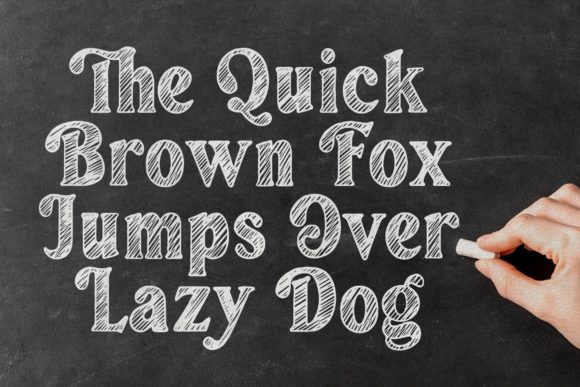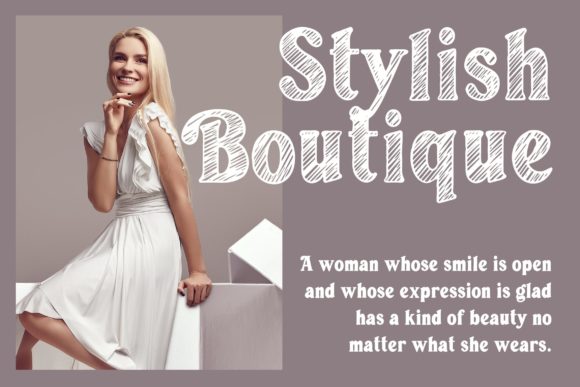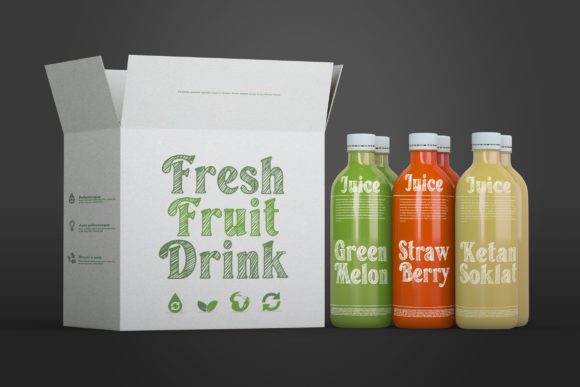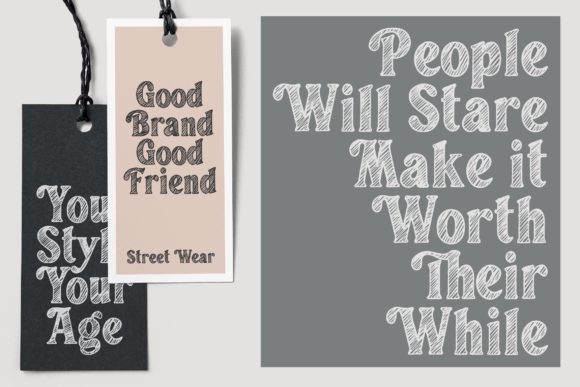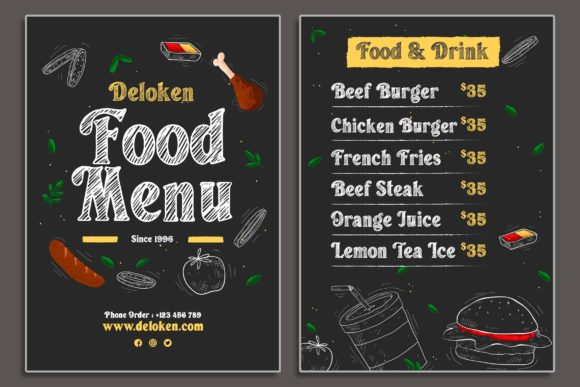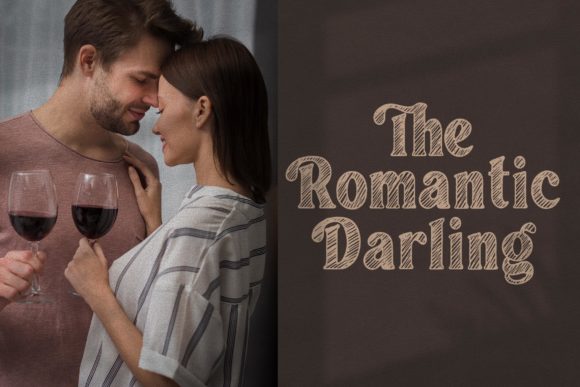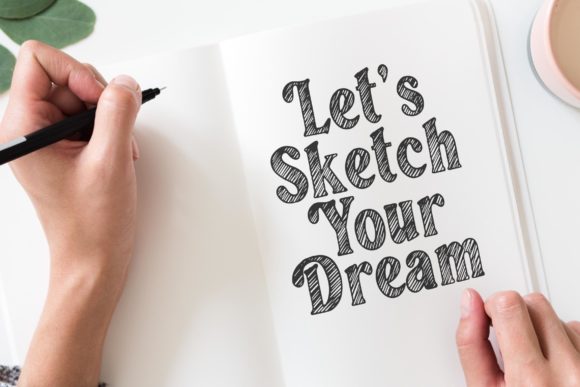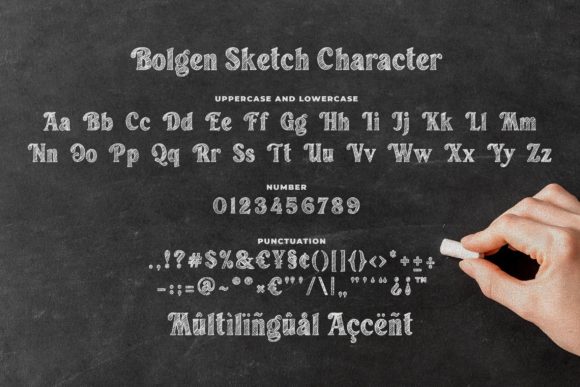
Bolgen Sketch Font
Bolgen Sketch is a bold and thick lettered serif font. It can be used for various purposes such as logos, wedding invitations, headings, t-shirts, letterhead, signage, labels, news, posters, badges and so much more.